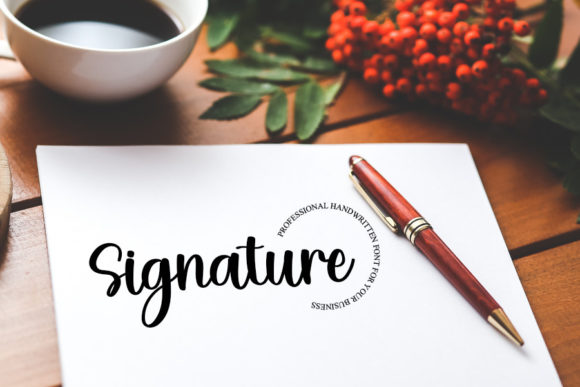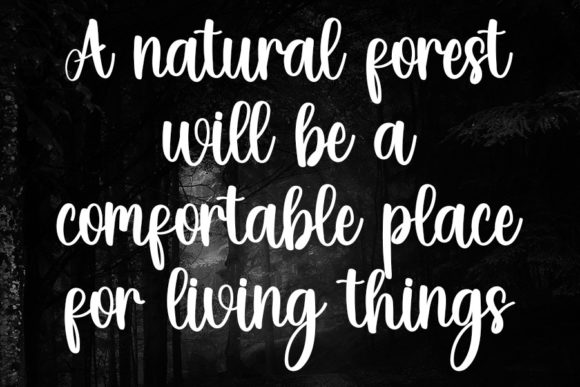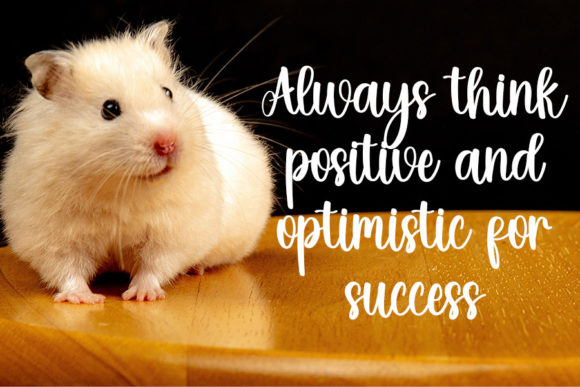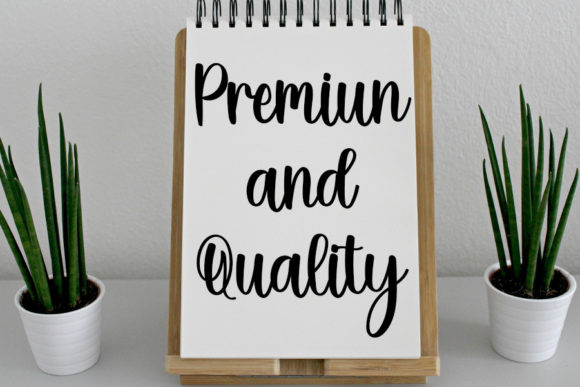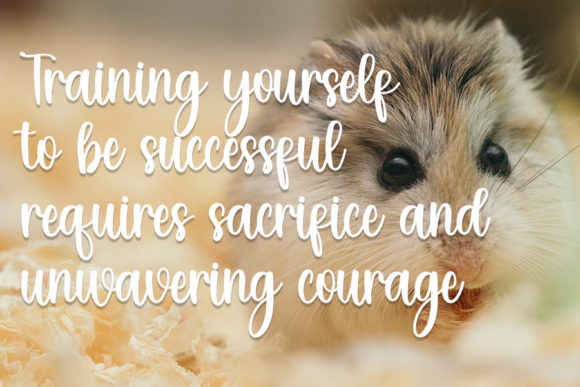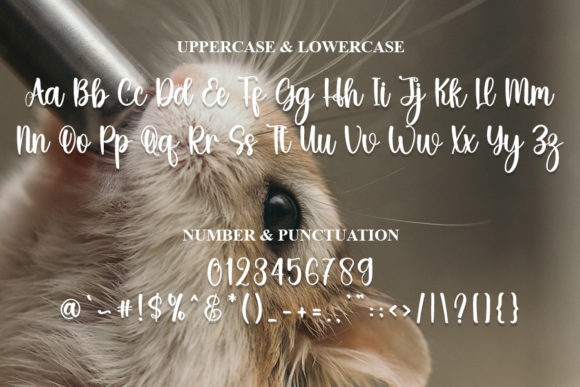
Introducing Hamster Font: Elevate Your Designs with a Touch of Timeless Elegance
In the world of typography, a font can make or break the aesthetic appeal of a design project. For designers and crafters looking to add a dash of sophistication and style to their work, the Hamster Font is an excellent choice. This stylish handwritten font boasts a contemporary atmosphere and impeccable form, drawing inspiration from timeless classic calligraphy. With its balanced and varied characters, Hamster Font is designed to enhance the beauty of your projects and leave a lasting impression.
The Inspiration Behind Hamster Font
Hamster Font is a masterful blend of traditional calligraphy and modern design sensibilities. Its creators sought to capture the essence of classic calligraphy, refining it to suit the demands of contemporary design. The result is a font that exudes elegance and poise, perfect for projects that require a touch of sophistication. Whether you’re working on a logo, branding materials, or digital content, Hamster Font is sure to elevate your design to new heights.
Key Features of Hamster Font
- Contemporary yet Classic: Hamster Font strikes the perfect balance between modern style and timeless elegance, making it versatile enough to suit a wide range of design projects.
- Handwritten with Flair: The font’s handwritten nature adds a personal touch to your designs, injecting them with character and warmth.
- Balanced and Varied: With a focus on readability and aesthetics, Hamster Font features balanced and varied characters that ensure your text is both beautiful and legible.
- Inspired by Timeless Classics: Drawing from the rich heritage of calligraphy, Hamster Font brings a sense of tradition and quality to your designs.
Use Cases for Hamster Font
Hamster Font’s versatility makes it suitable for a variety of design applications. Here are some use cases where this font truly shines:
- Branding and Logos: Create memorable brand identities with Hamster Font’s distinctive and stylish lettering.
- Digital Content: Enhance your website, blog, or social media posts with a font that combines readability with visual appeal.
- Print Materials: From business cards to brochures, Hamster Font adds a touch of elegance to any print project.
- Crafting and DIY Projects: For crafters and makers, Hamster Font can be used to add personalized touches to handmade items, such as journals, labels, and more.
Tips for Using Hamster Font Effectively
To get the most out of Hamster Font, consider the following tips:
- Pair with Complementary Fonts: Combine Hamster Font with simpler fonts to create visual contrast and hierarchy in your designs.
- Experiment with Colors: Take advantage of Hamster Font’s versatility by experimenting with different colors and textures that match your brand or project’s aesthetic.
- Pay Attention to Spacing: Ensure your text is easy to read by adjusting the spacing between letters and lines according to your design’s needs.
Hamster Font is a stylish and versatile addition to any designer’s toolkit. Its unique blend of contemporary style and classic calligraphy inspiration makes it perfect for a wide range of projects. Whether you’re a professional designer or a crafting enthusiast, Hamster Font offers the perfect combination of elegance, readability, and personality to elevate your designs. Discover the difference Hamster Font can make in your work and bring a touch of timeless elegance to your next project.